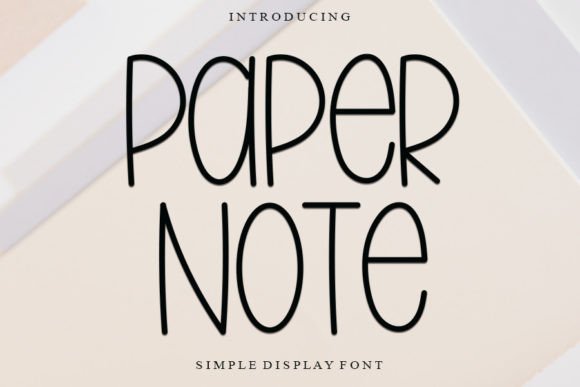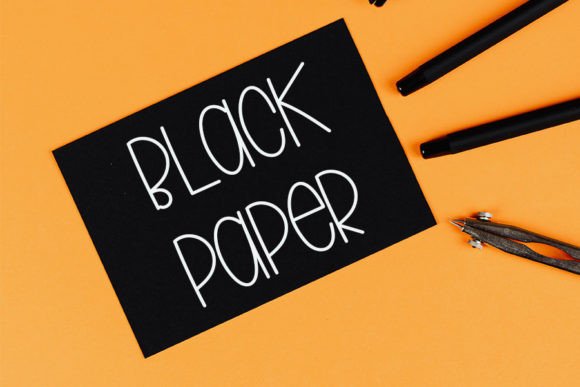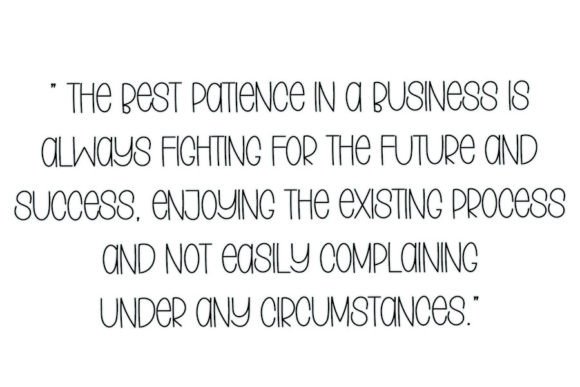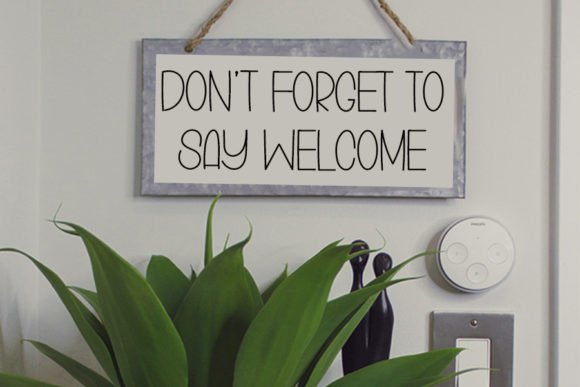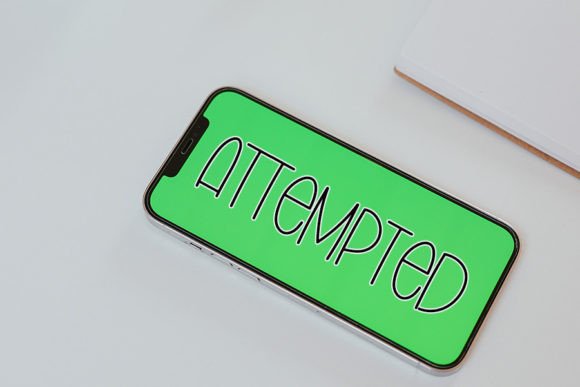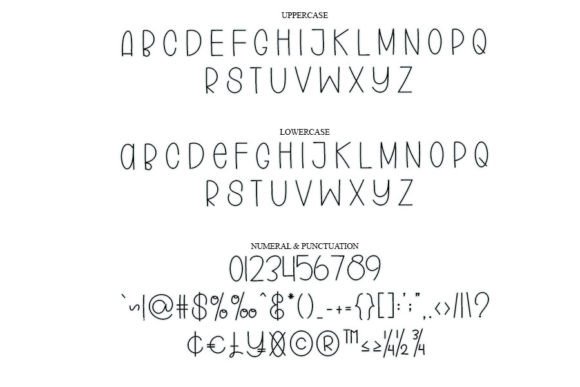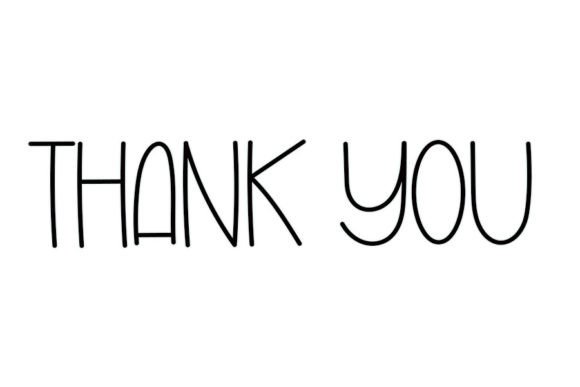
Paper Note Font
What Is Paper Note Font?
Paper Note Font is a beautifully crafted handwritten script designed to capture the timeless elegance of classic calligraphy with a fresh, contemporary twist. Each letter features smooth, refined strokes that feel polished and graceful, creating a style that works seamlessly across both traditional and modern design contexts.
The font combines the sophistication of old-world handwriting with the clarity and versatility required for today’s design needs, making it a perfect choice for projects that demand authenticity and style.
Paper Note Font is incredibly versatile and adapts effortlessly to a variety of creative applications. For example, it looks stunning on logos and branding materials, adding a refined, high-end feel that sets your visual identity apart. Whether you run a boutique, a design studio, or an artisan business, this script gives your brand a timeless, professional look.
It’s also perfect for wedding invitations, save-the-date cards, and stationery. The elegant letterforms create a romantic, memorable impression for events and celebrations.
If you design posters, packaging, or product labels, Paper Note Font elevates your layouts with sophistication and clarity. The balance between decorative script and legibility ensures your message remains easy to read while feeling premium.
Social media graphics and website headers also shine with this font. Whether you’re sharing quotes, announcements, or promotional content, Paper Note brings a cohesive, elegant touch to every post.
Additionally, Paper Note Font is an excellent choice for editorial design. Use it in magazines, books, or feature articles to highlight pull quotes or create attention-grabbing headlines.
Why Should You Choose Paper Note Font?
One of the top reasons to use Paper Note Font is its perfect balance between contemporary style and classic calligraphy. This unique combination allows you to create designs that feel fresh and relevant without losing a sense of tradition.
Another advantage is readability. Despite its graceful script style, every letter is carefully constructed to remain clear at all sizes, from tiny labels to oversized banners. This makes it ideal for both display and body text.
Designers also appreciate how easily it pairs with other typefaces. Combine Paper Note with a minimalist serif or sans-serif font to create balanced, professional layouts that feel both sophisticated and approachable.
Paper Note Font adds warmth, authenticity, and elegance to any project. Its smooth, flowing strokes help your work feel handcrafted and personal, which is especially valuable when creating designs meant to inspire trust or celebrate special moments.
Its versatile character ensures that even minimalist designs feel elevated and distinctive. From luxury packaging to thoughtful stationery, this font adds a touch of class without overwhelming your layout.
Choosing a high-quality handwritten script shows your commitment to detail and design excellence. Clients and customers will notice and appreciate this effort, helping you build credibility and strengthen your brand’s reputation.
Paper Note Font is more than just a beautiful script—it’s a creative asset that helps you communicate with elegance and confidence. From logos and invitations to social media and packaging, this font adapts to countless applications and always leaves a memorable impression.